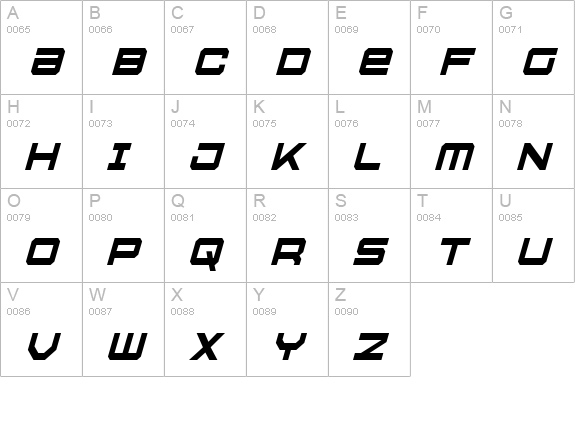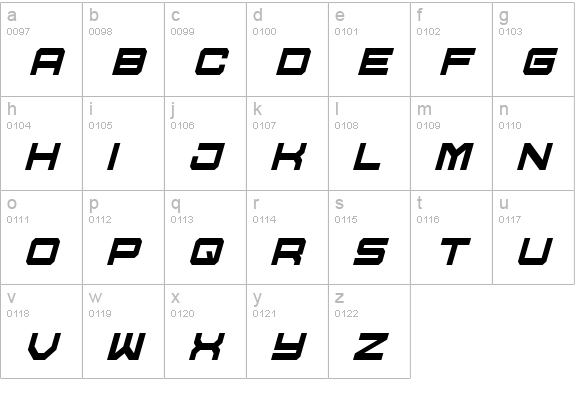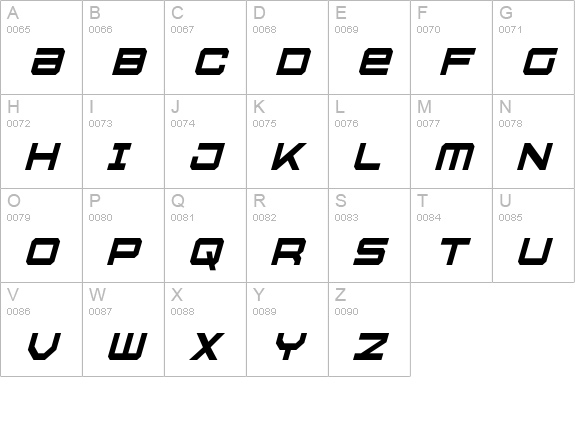
U.S.S. Dallas Condensed Italic is a distinctive, condensed-width, italic variant in the U.S.S. typeface family \xE2\x80\x94 well suited to design and typography projects.
U.S.S. Dallas Condensed Italic font is a sleek and modern typeface designed to make a bold statement in any design project. Its condensed form gives it a sophisticated and elegant look, perfect for adding a touch of style to your text. The italic style adds a dynamic flair, making it ideal for headings, quotes, and other attention-grabbing elements. And the best part? This stunning font is available for free download at FontsMarket.com! Whether you're working on a branding project, website design, or any other creative endeavor, U.S.S. Dallas Condensed Italic font is sure to elevate your work with its unique blend of style and versatility. Download it today and add a touch of sophistication to your designs with this eye-catching typeface.